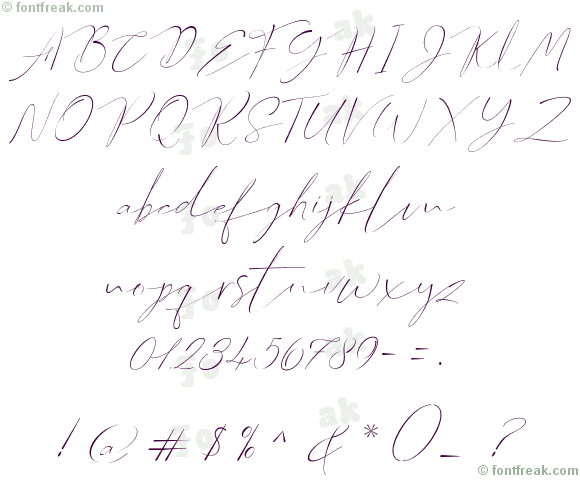
England
About England
The England font by Aqeela Studio is a captivating script typeface that exudes elegance and sophistication. Its fluid, cursive style features a graceful interplay of thick and thin strokes, creating a visually appealing contrast that enhances its overall charm. The letters have a slight slant, adding to the dynamic feel of the font, while the spacing is thoughtfully balanced, ensuring legibility even in longer texts. The decorative elements, characterized by beautiful swirls and loops, give the font a personal touch, making it perfect for a variety of design projects.
This font is ideal for use in wedding invitations, where its romantic flair can set the perfect tone for an unforgettable day. It also shines in branding projects for boutique businesses, allowing logos and packaging to convey a sense of artisanal quality. Restaurant menus benefit from its stylish appearance, making food descriptions enticing and appealing to diners. Additionally, it can be effectively employed in social media graphics, helping content creators capture attention and convey messages with flair.
The target audience for the England font includes graphic designers seeking to elevate their projects with a touch of sophistication, small business owners looking to create a memorable brand identity, and content creators who wish to enhance their visual storytelling.
What sets the England font apart is its ability to blend classic elegance with modern design sensibilities. This versatility makes it a valuable addition to any designer's toolkit. With its freeware license, the England font free download offers an accessible option for those looking to enrich their typography choices without compromising on quality. Embrace the charm of the England font and let it elevate your creative endeavors.